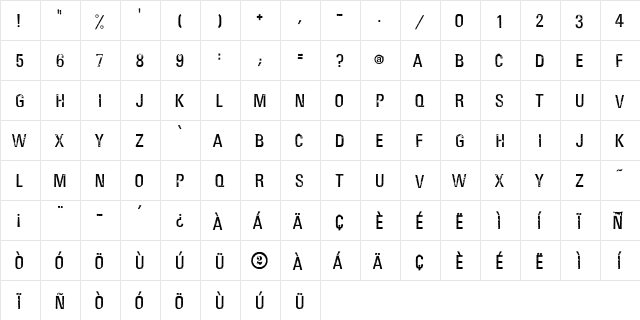
Hector Regular Font Preview
Hector Regular
Hector Regular Font Details
Design Context for Hector Typeface
Hector takes a measured approach to typography — its balanced proportions and neutral character make it a reliable workhorse for both digital and print work.
Pro Tip: Pair Hector with a font of contrasting weight or personality to build a more expressive typographic hierarchy.